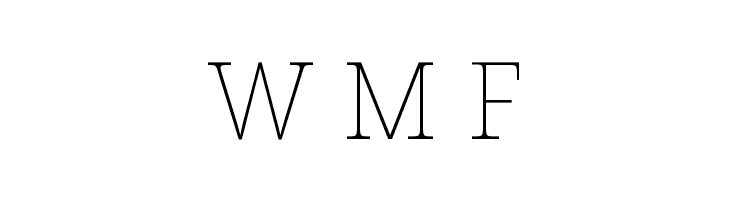
A classic serif font with elegant, light strokes and refined serifs.
A refined, thin serif font with an elegant italic style.
An elegant, extra light serif font with an italic style.
A bold, italic serif font with a classic and authoritative style.
A thin, elegant serif font with refined strokes and a modern aesthetic.
A bold serif font with classic elegance and strong readability.
A bold, italic serif font with a classic and elegant style.
A bold, high-contrast serif font with a strong, authoritative presence.
An elegant serif font with a classic italic style, perfect for sophisticated designs.
A refined serif font with thin, elegant strokes and subtle serifs.